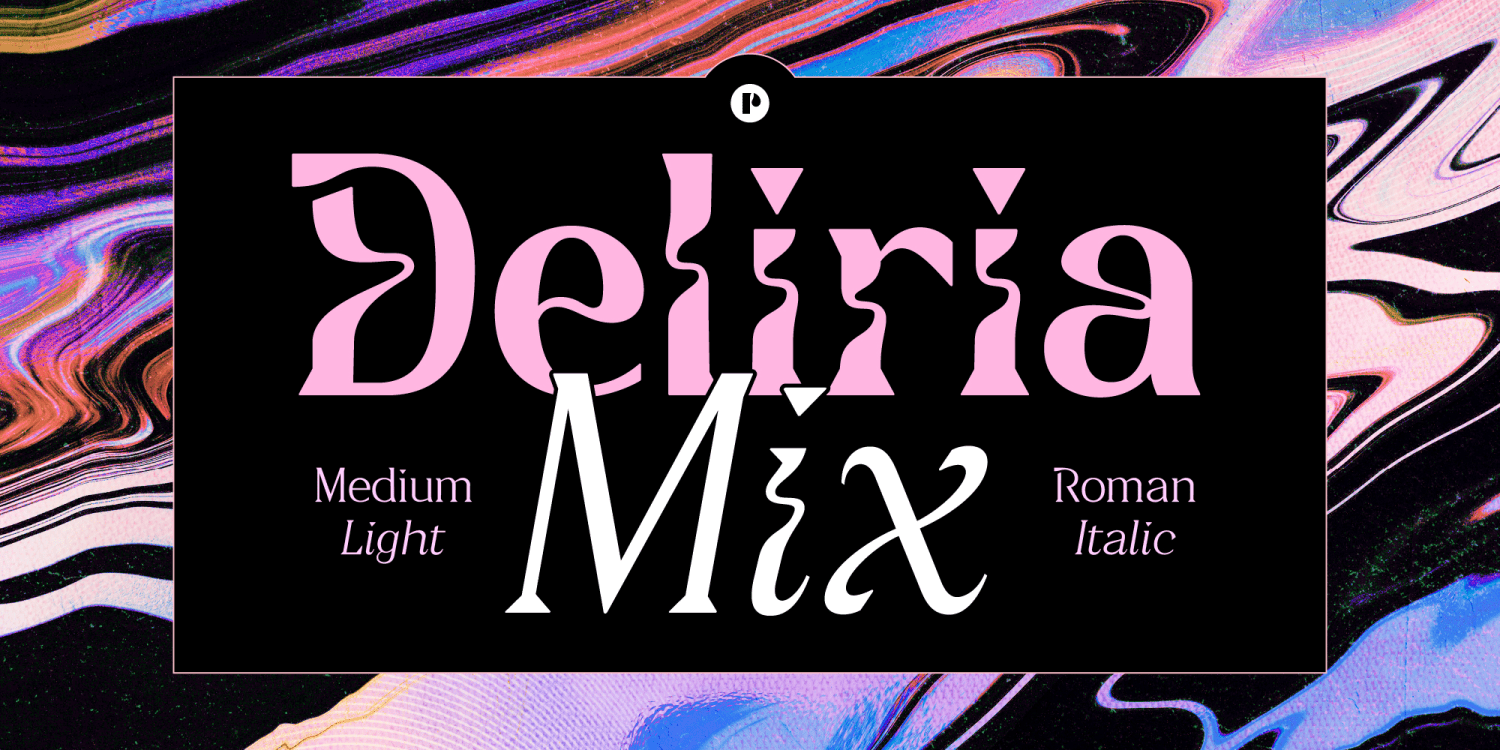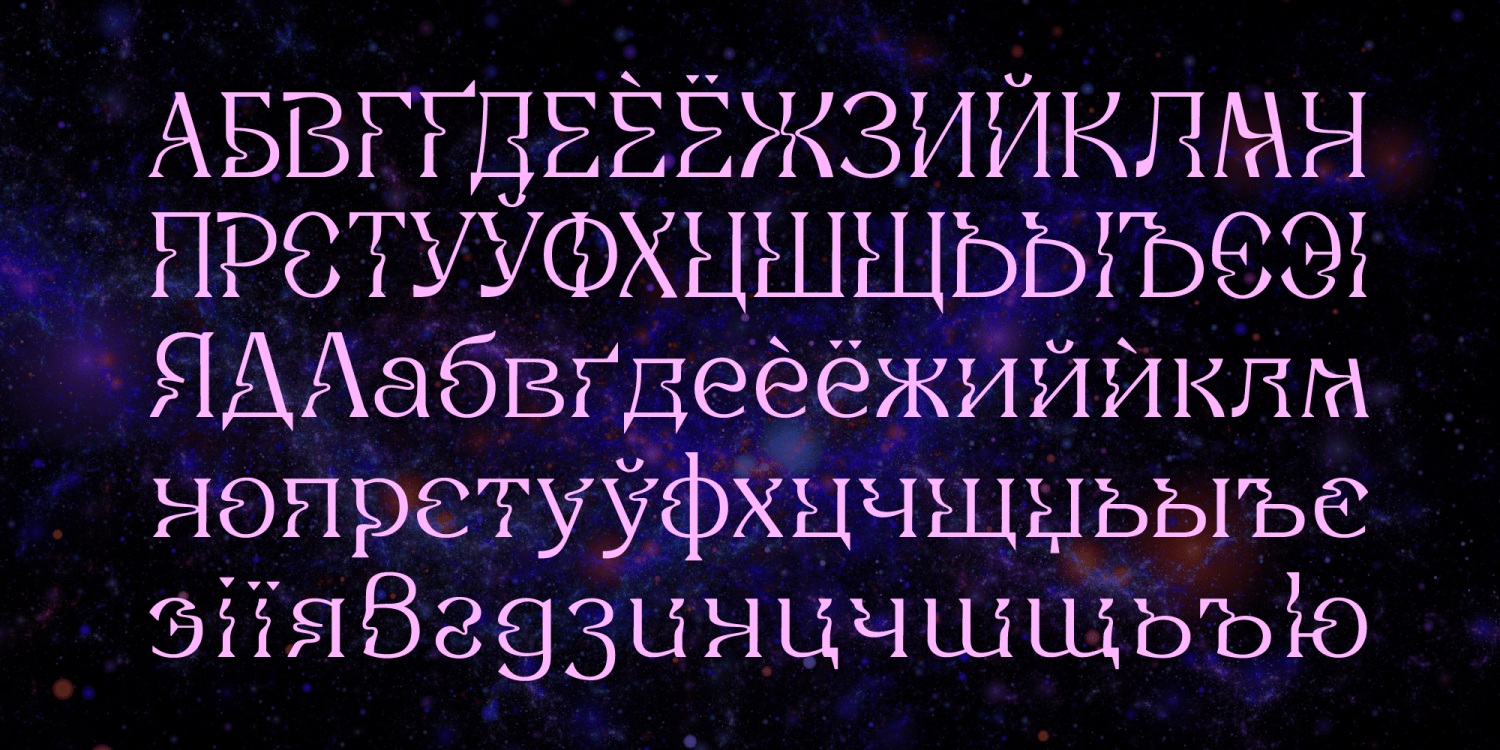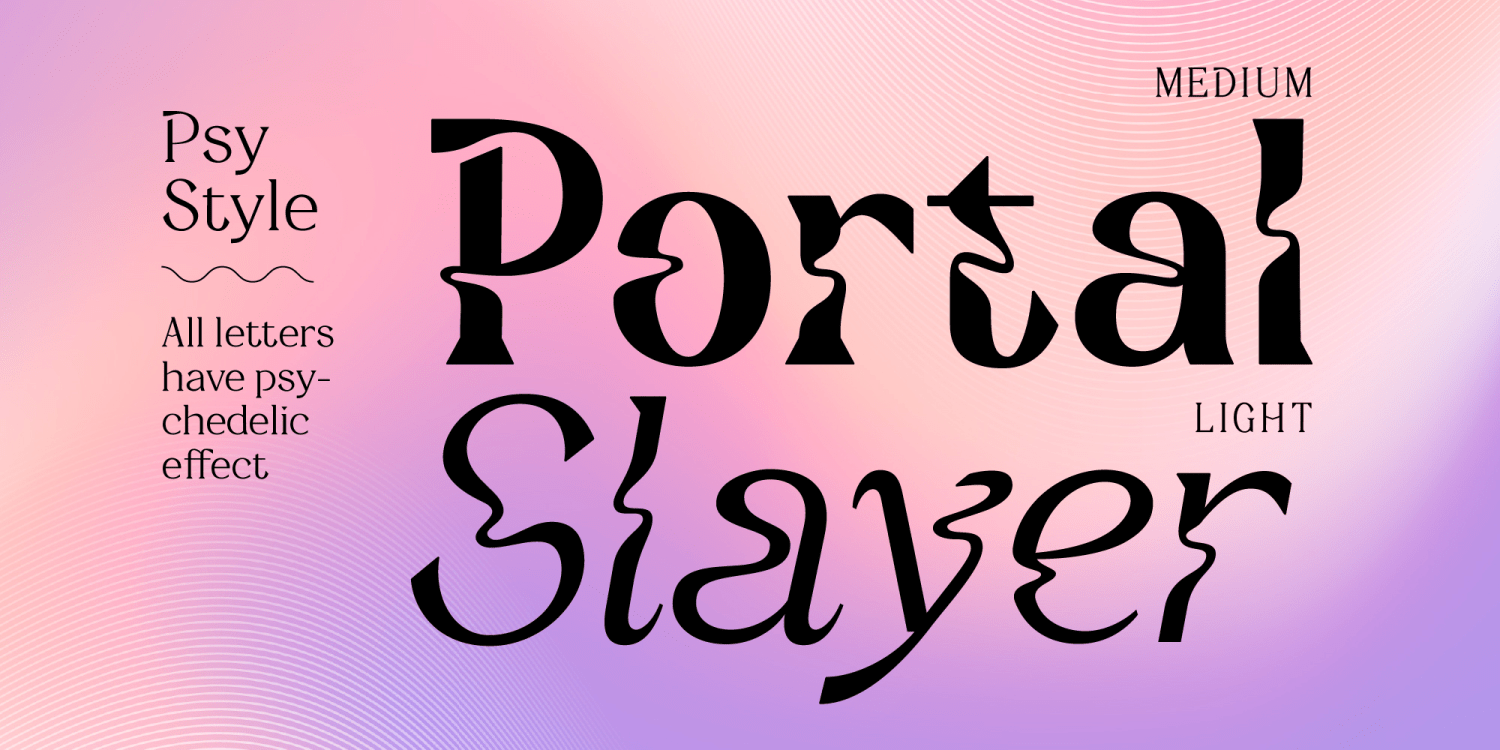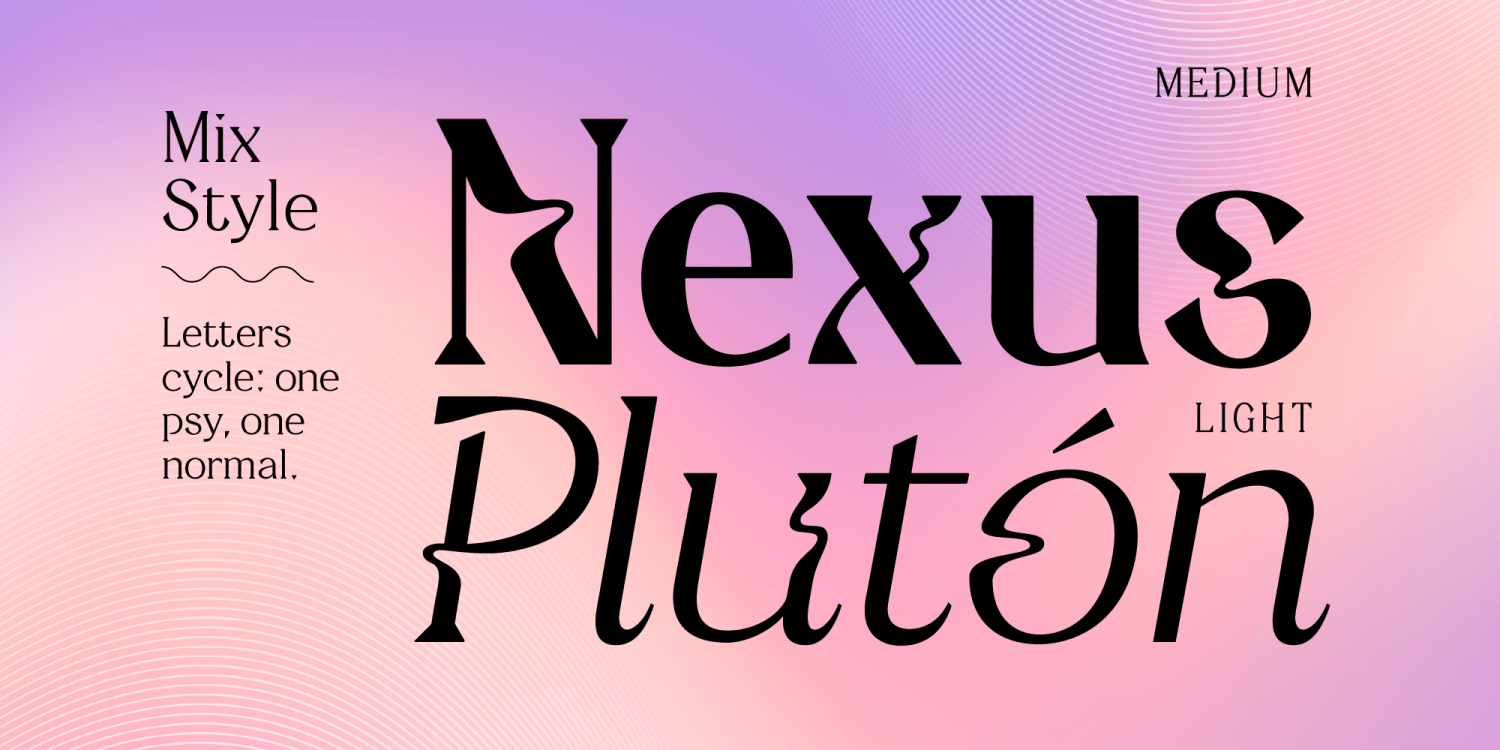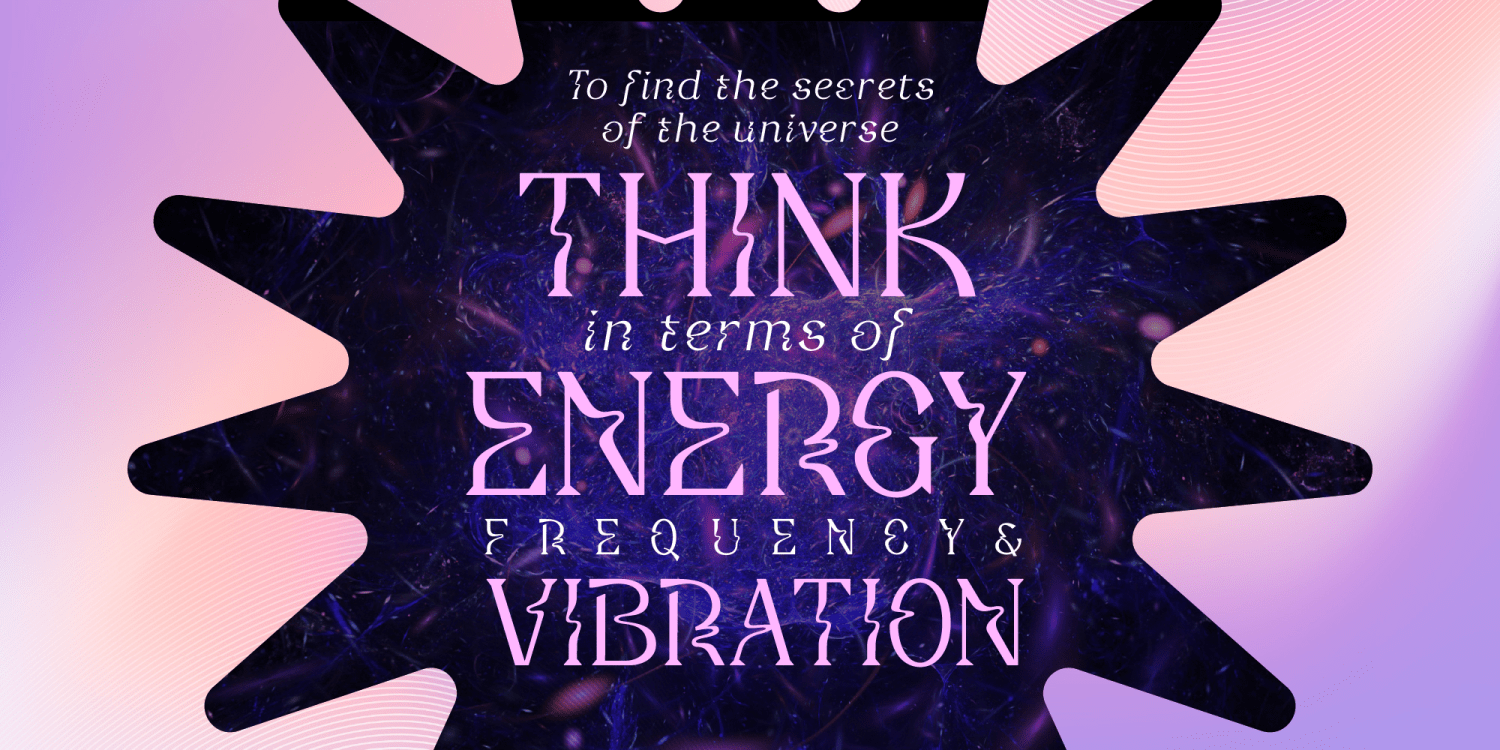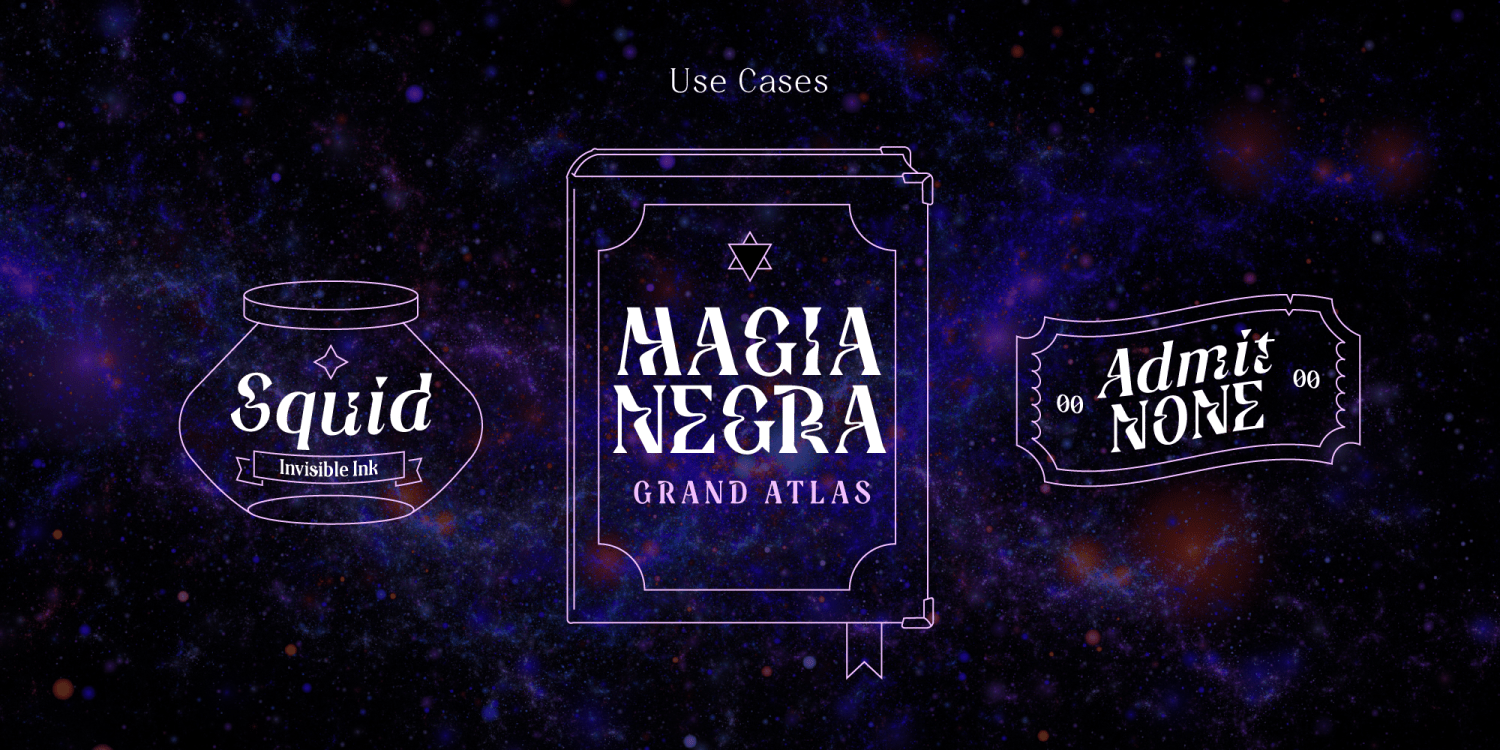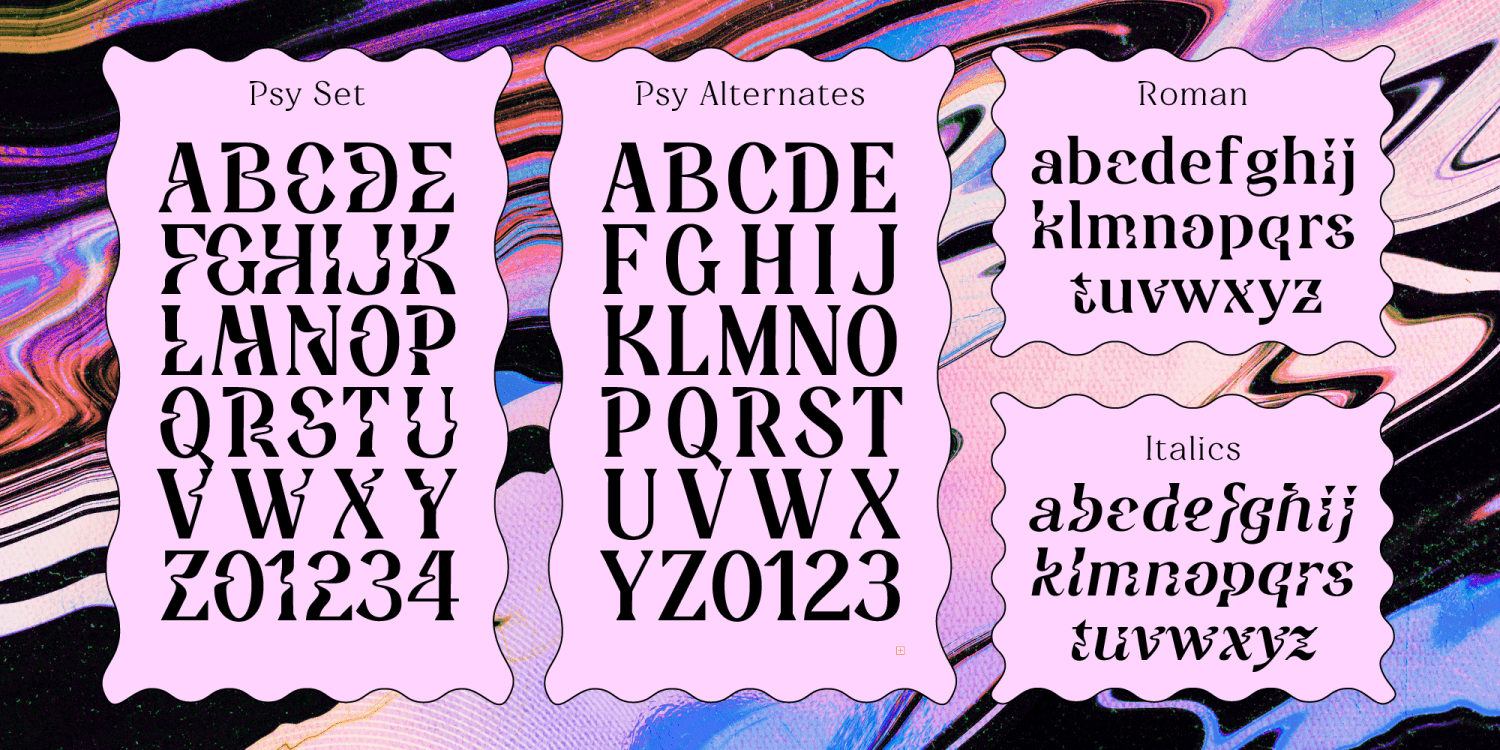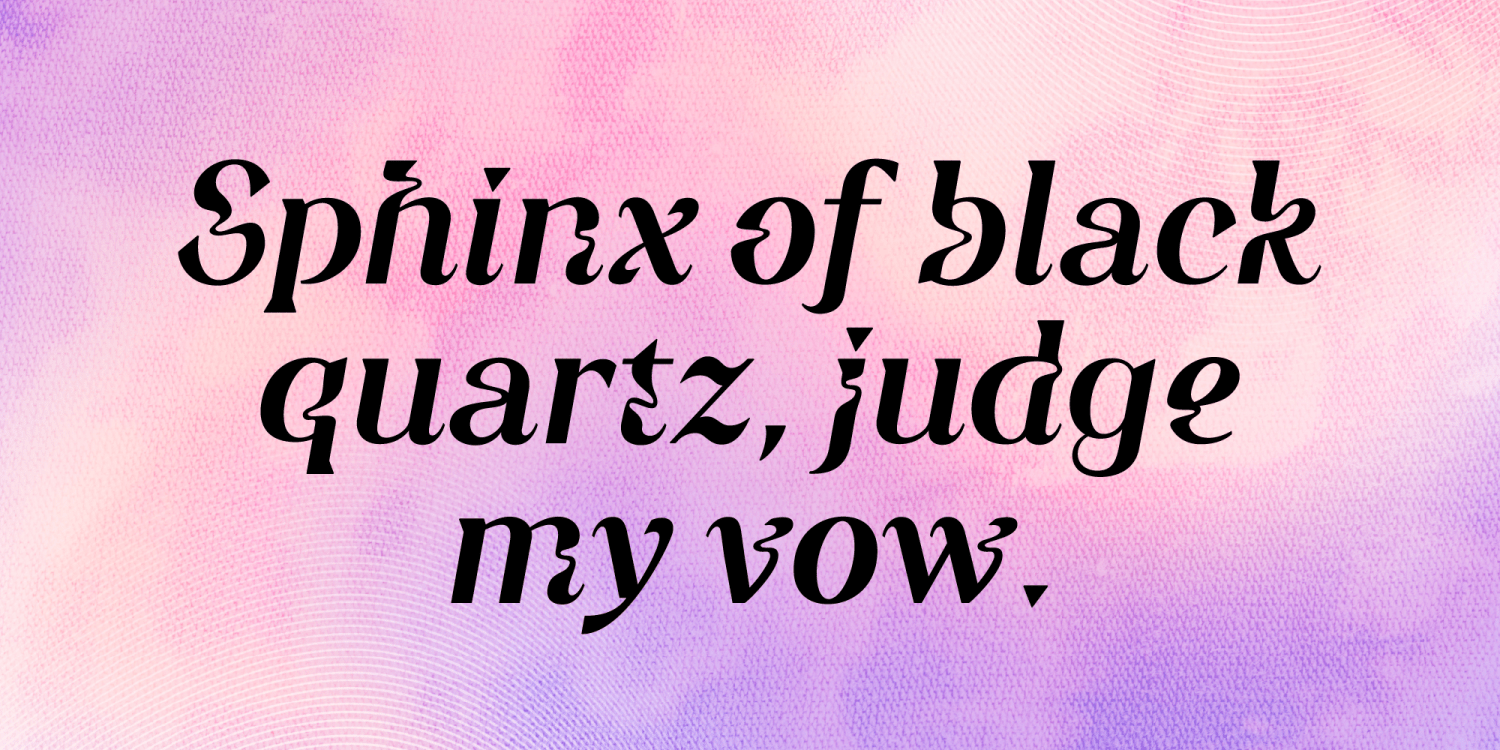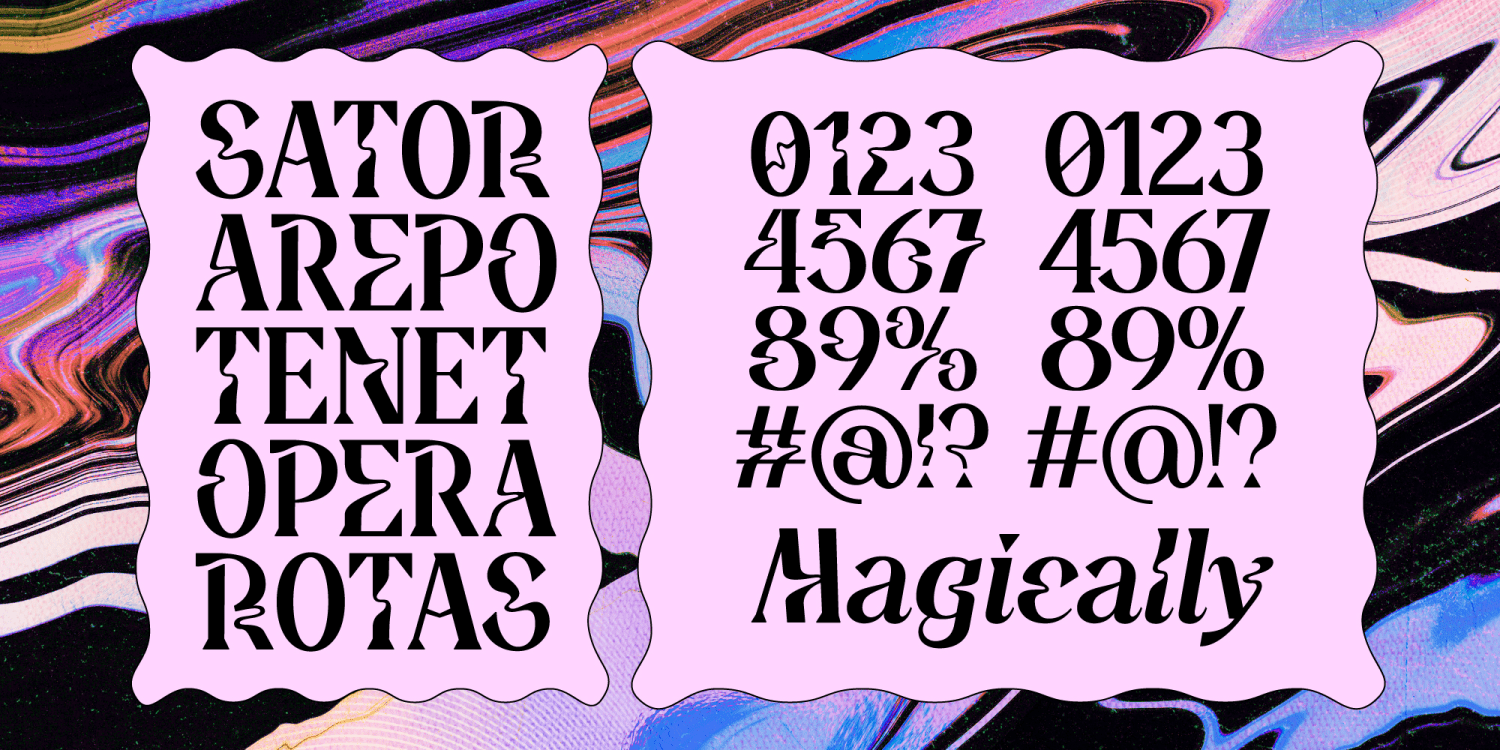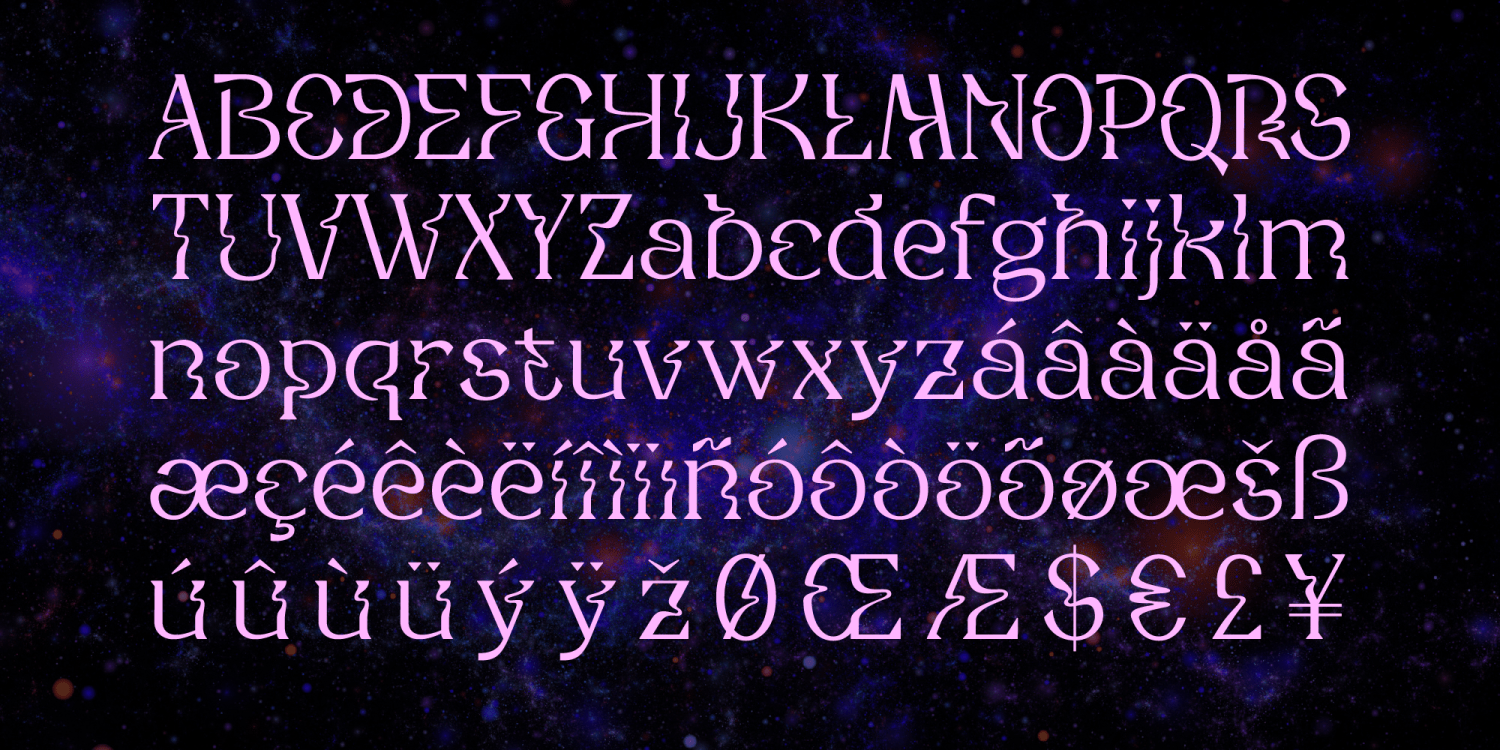
Deliria
Font Family by Pedroglifos
Liquid art nouveau meets Y2K. Deliria is an elegant and trippy font that comes in two main flavors and a bonus hidden style. First the Psy style —the original style that gave birth to the font, where all letters melt at roughly the same height. The second and newest style is called Mix, where the font automatically cycles one ‘psy’ letter with a simpler letter. Mix is ideal for longer phrases since it enhances readability. Now, there is a third style hidden as a stylistic set in the Psy style called Static. When activated, the trippy voyage ends leaving every letter, symbol and figure grounded to its simplest form and structure.
Deliria excels as a display typeface at larger sizes on projects that crave a swirl of personality. She is best used as a decorative serif font intended to melt the hearts of those who gaze upon it.